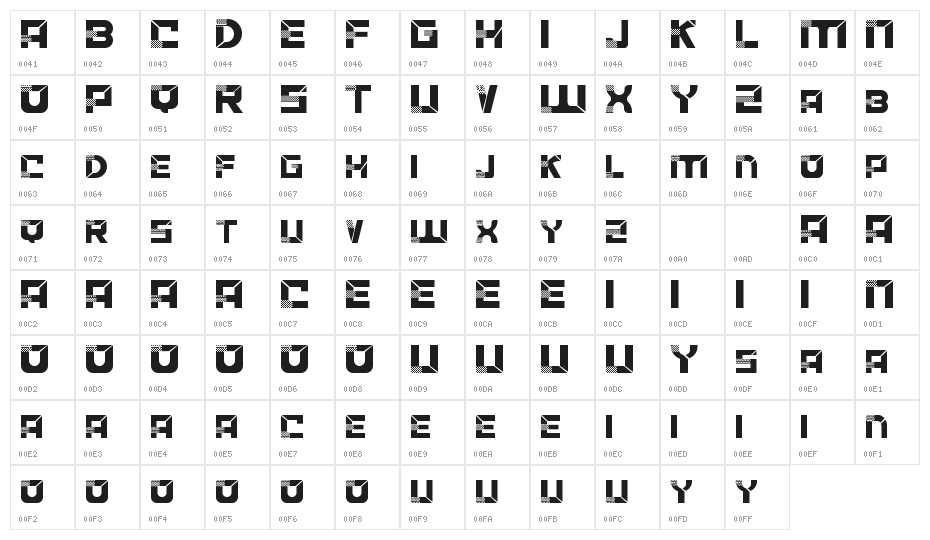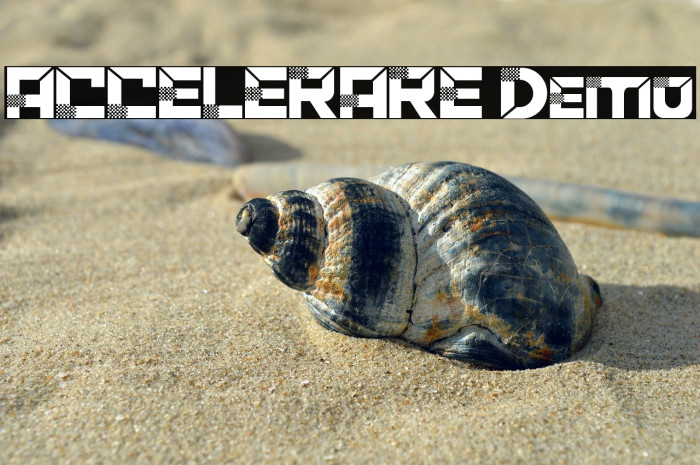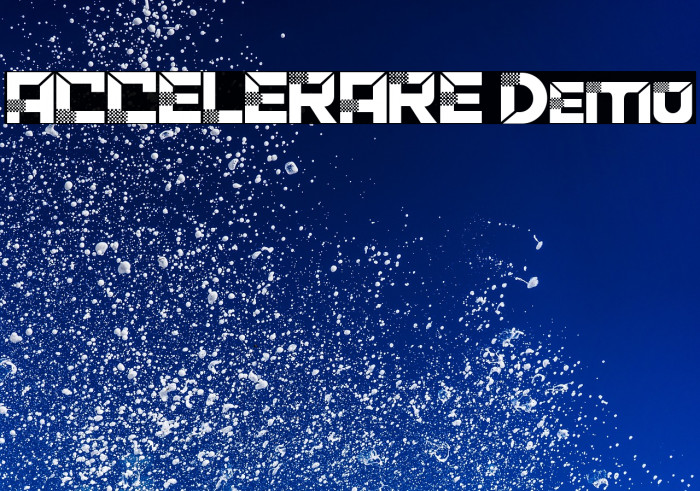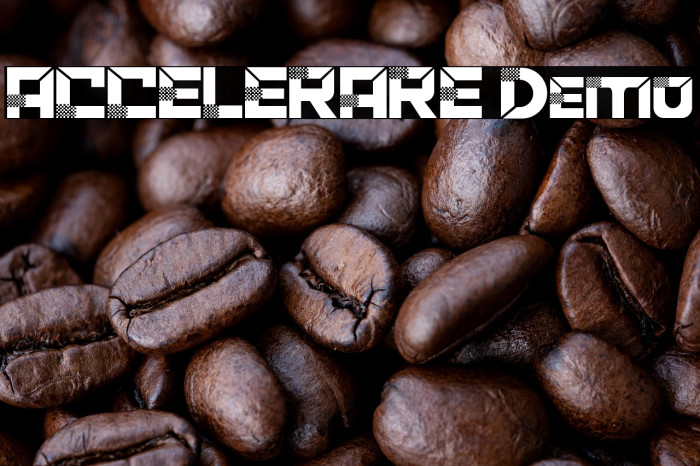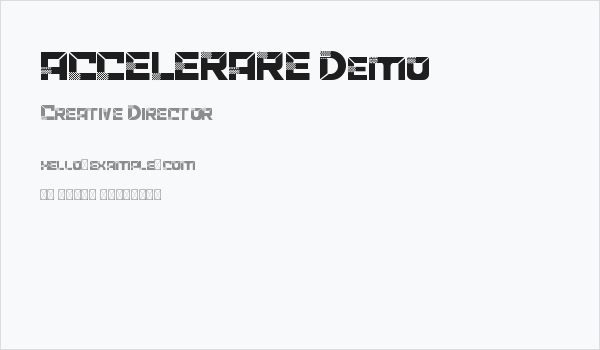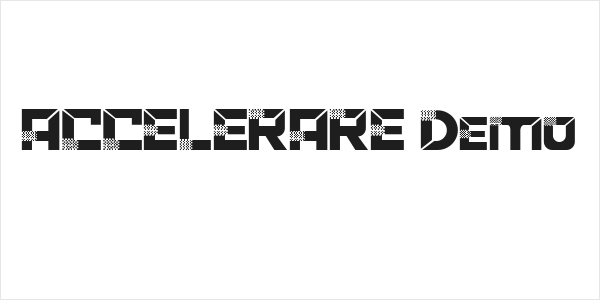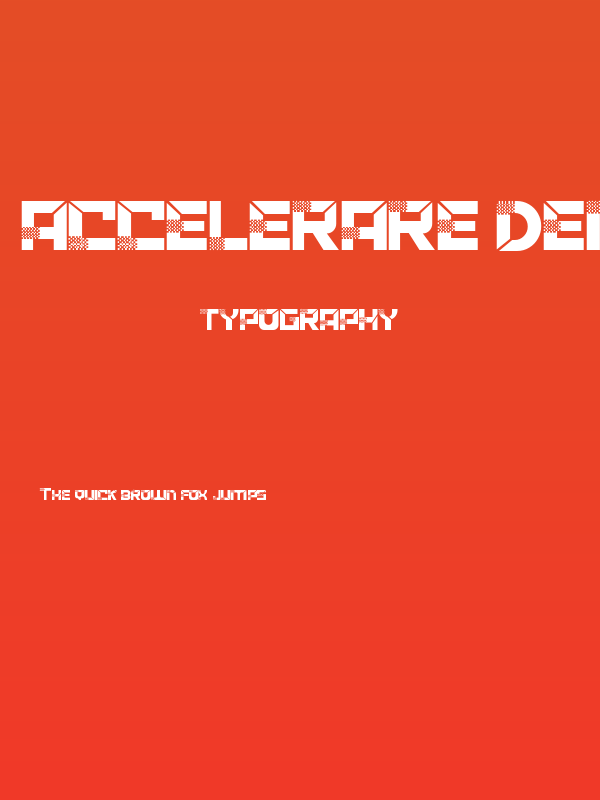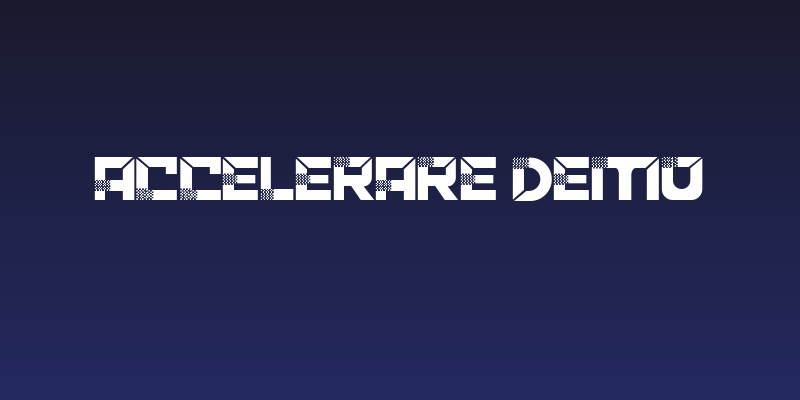
ACCELERARE Demo Font
ACCELERARE Demo Description
This font features a bold, geometric design with a distinct futuristic and industrial feel. The characters are constructed with sharp angles and a blocky structure, incorporating a unique pattern of dots and lines that add a textured appearance. The style is reminiscent of digital or technological themes, making it stand out with its modern and edgy aesthetic. The uppercase letters are particularly striking, with consistent height and width, while the absence of lowercase and special characters emphasizes its decorative nature. This font is ideal for projects that require a strong visual impact and a contemporary look.
| Proposed Projects | Ideal for tech-themed posters, video game titles, futuristic branding, and digital art projects. |